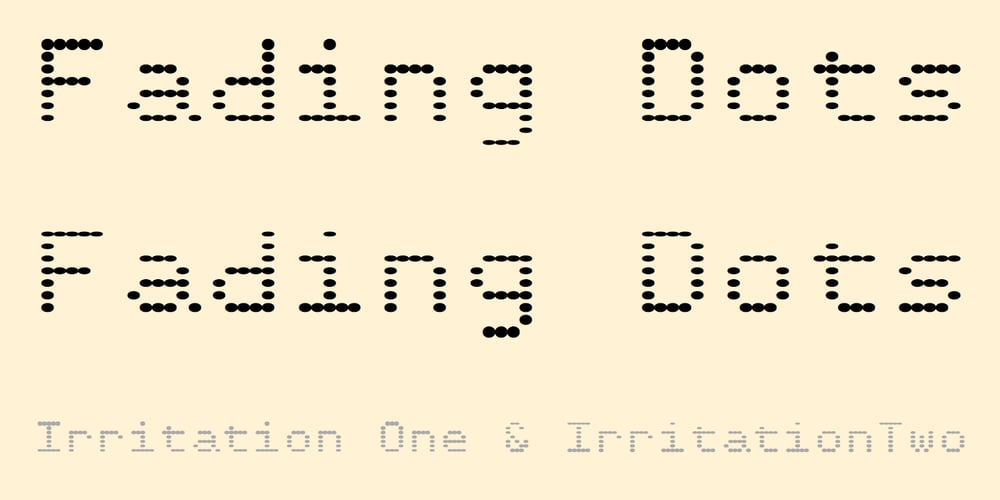
Irritation
Irritation font
Irritation Font Family was designed by Robert Schenk and published by Ingrimayne Type. Irritation contains 2 styles and family package options. Have you ever had to read text from a cheap dot-matrix printer which is not aligned quite right, so that the tops of the letters are either darker or lighter than the bottoms? Now with IrritationOne and IrritationTwo you can relive that experience even though you no longer use a dot-matrix printer. IrritationOne has dark tops and fading bottoms, while IrritationTwo has the opposite. Naturally both are monospaced.